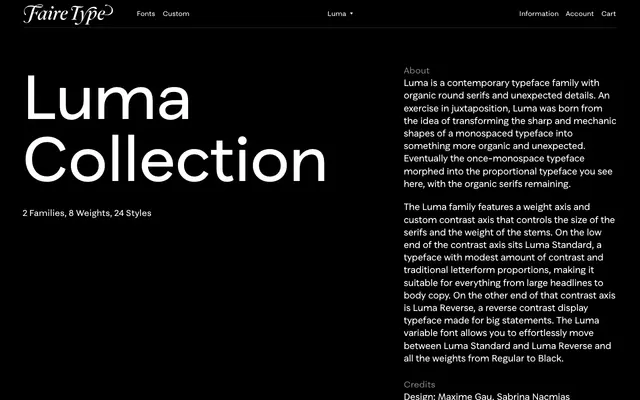
Luma
Faire Type · Maxime Gau, Sabrina Nacmias · 2023
A variable serif family by Maxime Gau and Sabrina Nacmias that spans modest-contrast text to reverse-contrast display via a custom contrast axis.
Born from an experiment in reforming monospaced geometry into something proportional and organic, Luma retains rounded serifs as evidence of that origin. A weight axis and a custom contrast axis let the variable font move continuously between Luma Standard, a workable text face with traditional proportions, and Luma Reverse, a reverse-contrast display cut built for large-scale work. A companion sans, Luma Sans, extends the family with eight weights and italics, released a year after the original.
Luma Standard is a proportional serif with organic rounded serifs and modest contrast, while Luma Reverse flips contrast for display use; the family spans both conventional and reverse contrast designs, united by a variable font axis.